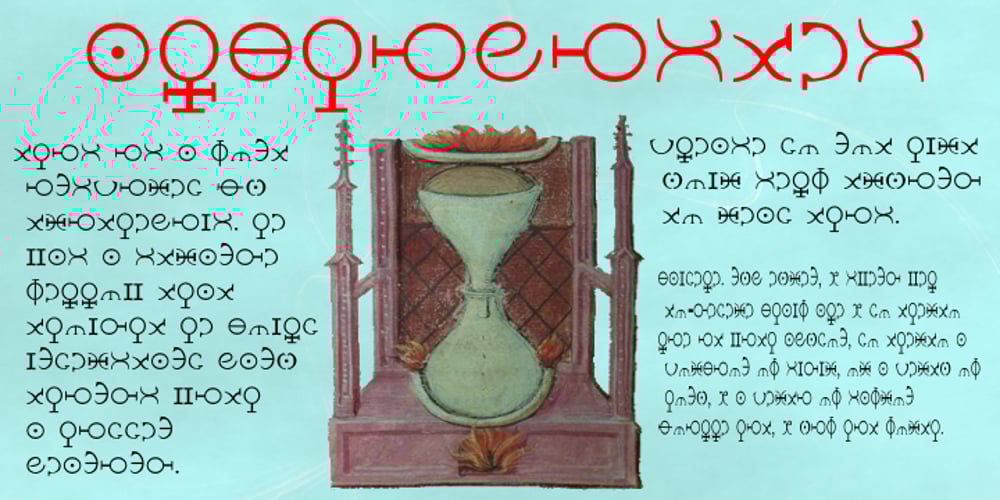
Alchimistes Font Family was designed by Shane Brandes and published by Proportional Lime. Alchimistes contains 1 styles and family package options. Trithemius, a 15th century Abbott, and influential counselor to Emperor Maximilian I, was also an author who wrote both histories and the first printed work on cryptography which gained him much adverse notoriety. He has been long regarded as a mystic and some of his works were therefore banned. However, it may have been his intention to cloak his cryptology essays in mystical writing to keep people from easily grasping the subject matter, which it has been recently demonstrated, at heart was really cryptological methodology. This font is based on a printed version of the Polygraphiae — a text that included many methods of encryption. The examplar for this font in that text was described as anothor method of Alchemists recording secrets.